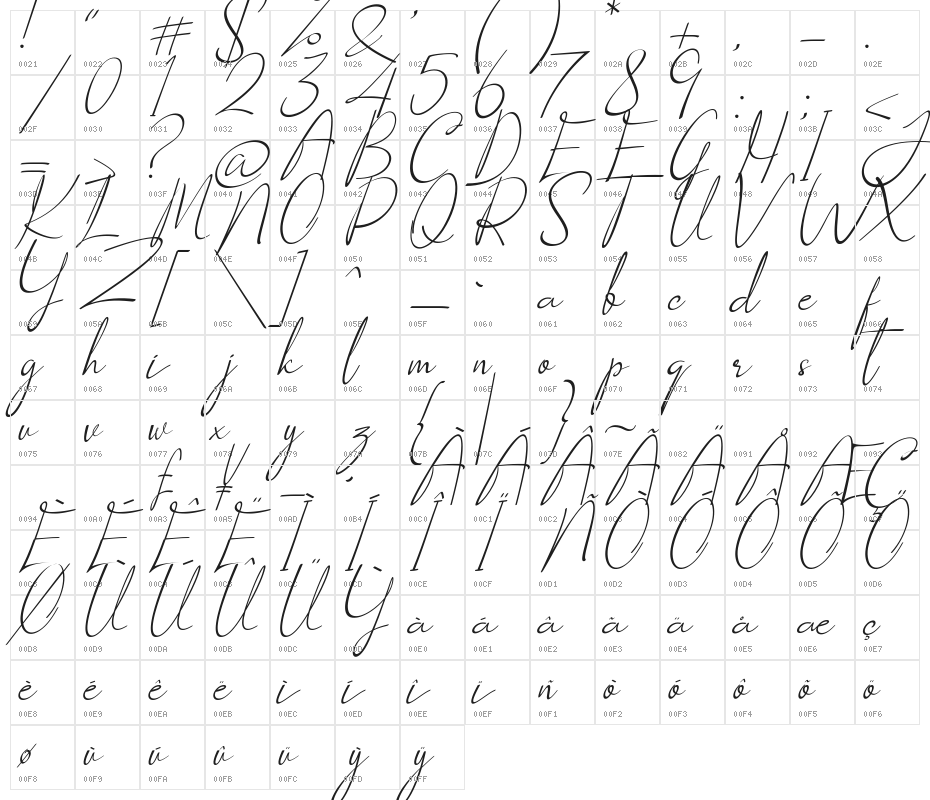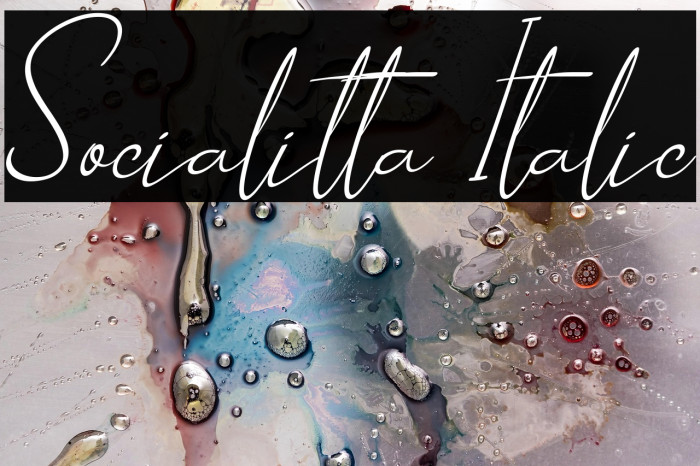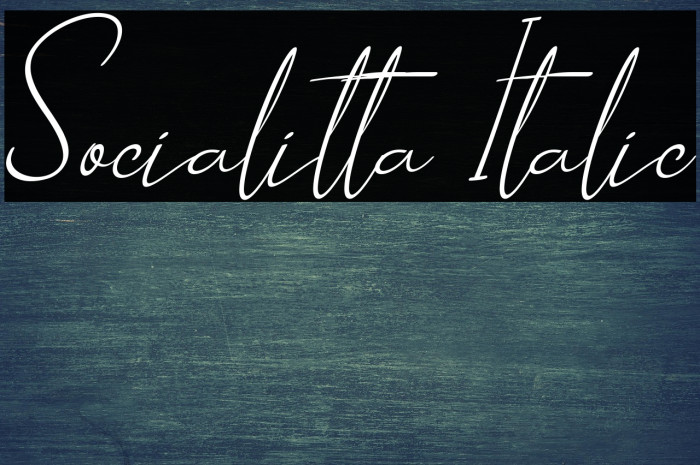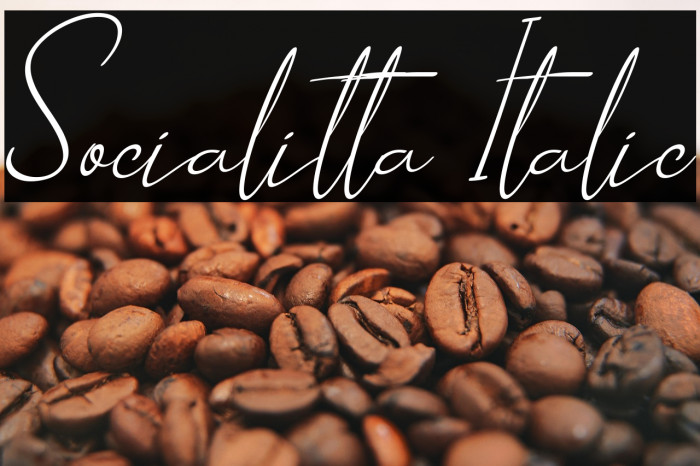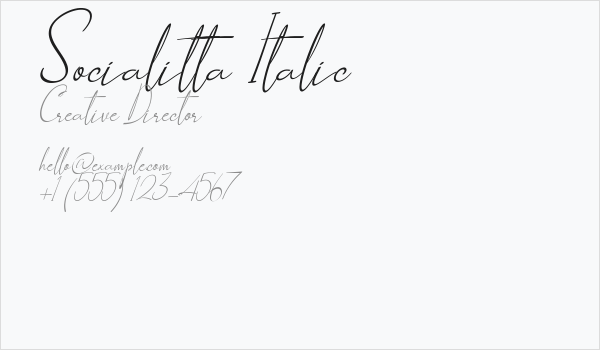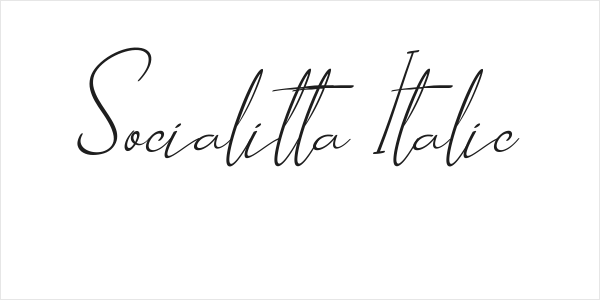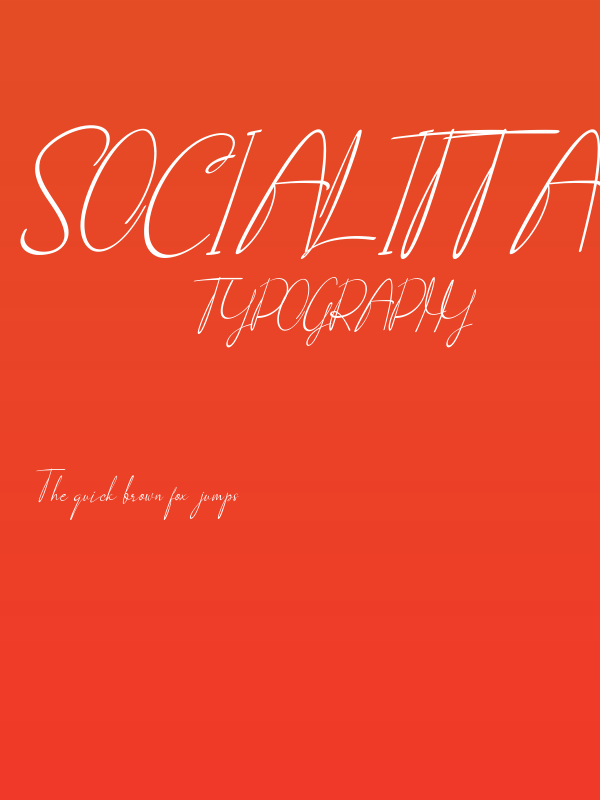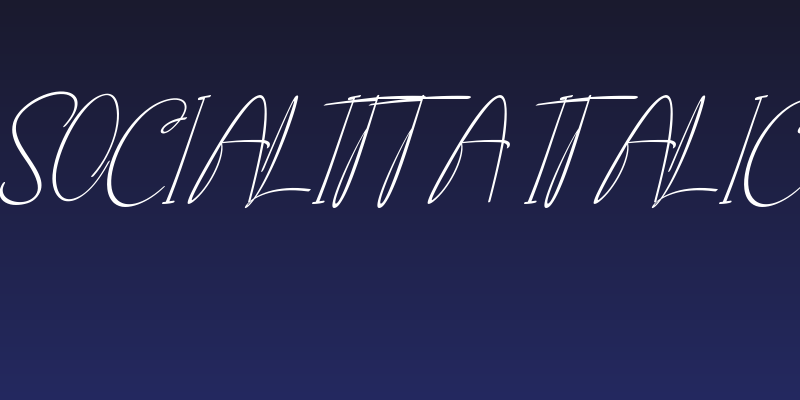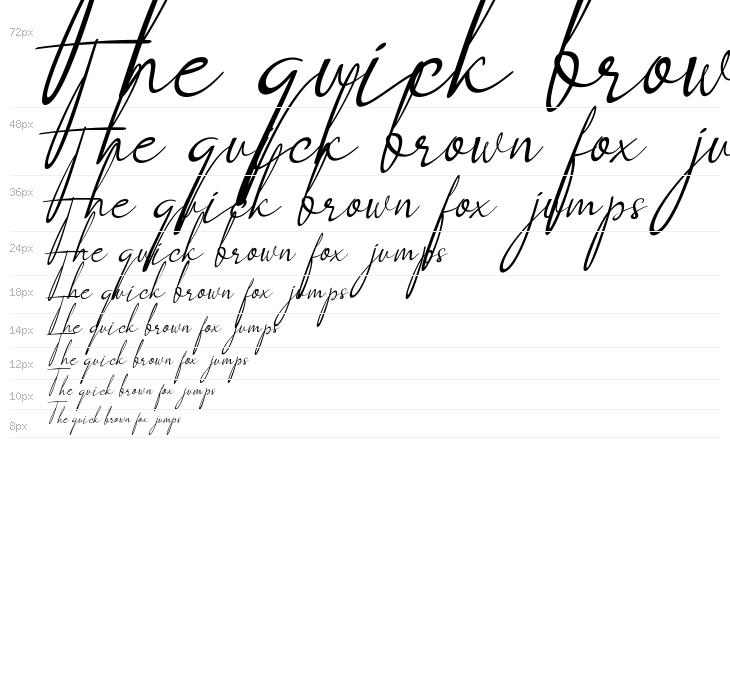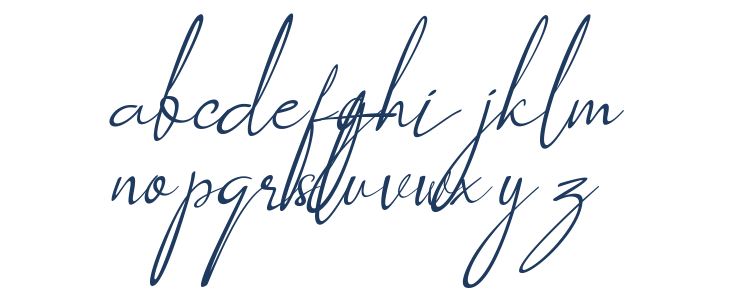
Socialitta Italic Font
Socialitta Italic Description
This font exudes a sophisticated and elegant style, characterized by its flowing, cursive script that mimics the fluidity of handwriting. The letters are elongated and slightly slanted, giving a sense of motion and grace. The uppercase letters are tall and slender, while the lowercase letters maintain a consistent flow, enhancing readability. The numerals and special characters are designed to complement the overall aesthetic, with smooth curves and delicate lines. This font is ideal for projects that require a touch of elegance and personal flair.